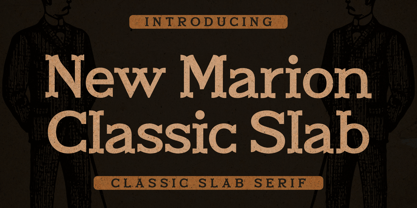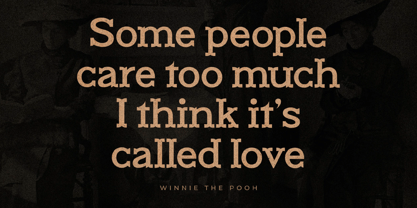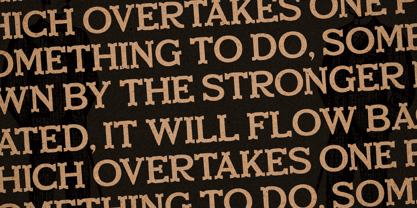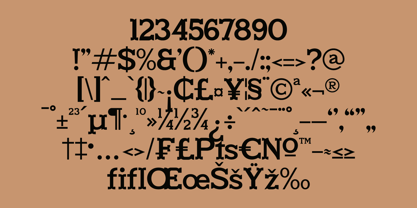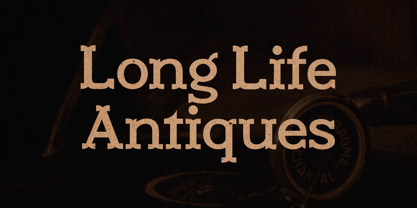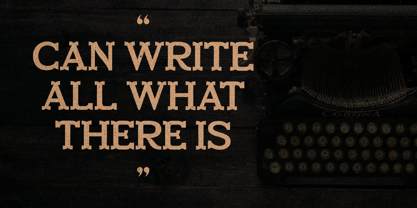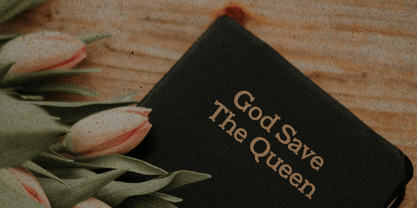
New Marion
by Letterena Studios
The New Marion Font Family was designed by Heru Utama Putra and published by Letterena Studios. New Marion contains 2 styles and family package options.
New Marion is a modern and classic serif typeface featuring unique characters and a fancy look.
This typeface is perfect for an elegant & luxury logo, book or movie title design, fashion brand, magazine, clothes, lettering, quotes, and so much more.